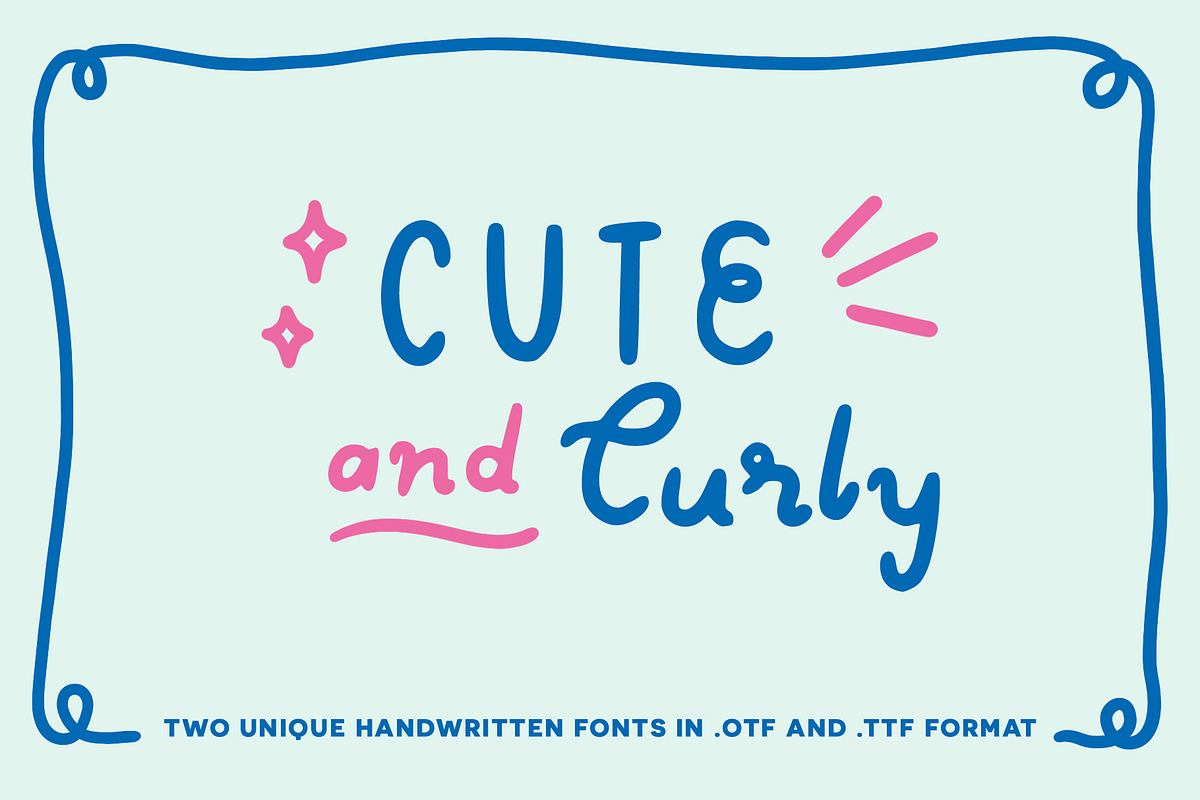
Please note that you must purchase these fonts for commercial use. You can download Cute & Curly Handwritten Fonts for free, strictly for personal testing purposes only. This charming collection of handwritten fonts is designed to bring a playful and whimsical touch to your designs. With its curly strokes and fun letterforms, Cute & Curly Handwritten Fonts Free Download is perfect for children’s books, greeting cards, t-shirt designs, invitations, and any creative project that needs a joyful, hand-drawn aesthetic.
These fonts exude personality and warmth, making them ideal for projects that require an informal, friendly, and artistic feel. The bundle typically includes uppercase and lowercase letters, numerals, punctuation, and multilingual support, providing flexibility for various creative uses.
Whether you're designing for a young audience, creating quirky stationery, or crafting fun social media graphics, Cute & Curly adds a unique, handwritten style to your typography.